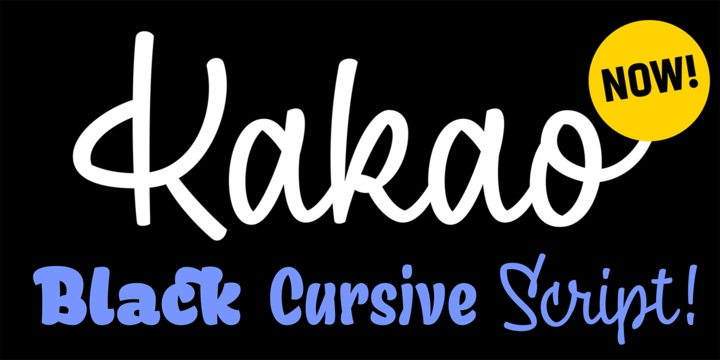
Kakao Premium Font
Kakao Premium Font is perfect for chocolate branding, gourmet packaging, artisanal logos, premium food design, luxury confectionery, cocoa products, organic labels, café signage, dessert menus, and sophisticated culinary communications. This rich typeface excels in both digital and print applications requiring premium quality appeal.
Kakao Premium Font is exciting because it captures the luxurious essence of premium chocolate with refined letterforms that evoke artisanal quality and gourmet sophistication while maintaining excellent readability. Its premium character creates memorable brand experiences that resonate with audiences seeking authentic luxury and artisanal craftsmanship.
The Kakao Premium Font family includes regular, bold, light, italic, condensed, extended, and artisanal variants, providing designers with comprehensive typographic options for various design scenarios and premium communication requirements.
Kakao Premium Font embodies the sophisticated world of premium chocolate and artisanal confectionery, delivering exceptional typography that reflects the luxury quality and craftsmanship associated with gourmet food products and artisanal creation. This distinguished typeface draws inspiration from chocolate heritage, European confectionery traditions, and artisanal craftsmanship to create letterforms that communicate premium quality, authentic luxury, and sophisticated taste. The font's premium character makes it particularly valuable for chocolate manufacturers, gourmet food brands, luxury confectionery, and artisanal producers that require typography capable of conveying premium quality, artisanal excellence, and sophisticated culinary heritage.
The refined construction of Kakao Premium Font demonstrates careful attention to premium design principles, with elegant proportions and sophisticated details that create luxurious compositions reminiscent of fine chocolate packaging and gourmet branding. This artisanal approach ensures excellent performance across diverse applications, from product packaging to marketing campaigns where premium appeal enhances brand credibility and desirability. The font's luxurious qualities make it especially effective for brands in gourmet foods, specialty beverages, luxury hospitality, and artisanal crafts that celebrate quality and traditional craftsmanship.
Creative professionals working with Kakao Premium Font Free Download will appreciate the typeface's versatility across premium and contemporary design challenges. Its sophisticated styling bridges artisanal tradition with modern luxury aesthetics, making it suitable for established gourmet brands and innovative premium startups requiring distinctive, memorable typography with authentic appeal. The font's elegant presence makes it particularly effective for boutique chocolatiers, gourmet cafés, luxury hotels, and premium lifestyle brands that must communicate quality through refined, trustworthy visual design.
Whether developing premium brand identities, creating gourmet communications, or designing luxury marketing materials, Kakao Premium Font provides the sophisticated elegance needed for communications that inspire desire and convey premium value while maintaining artisanal authenticity and achieving distinguished market positioning across all luxury culinary channels.